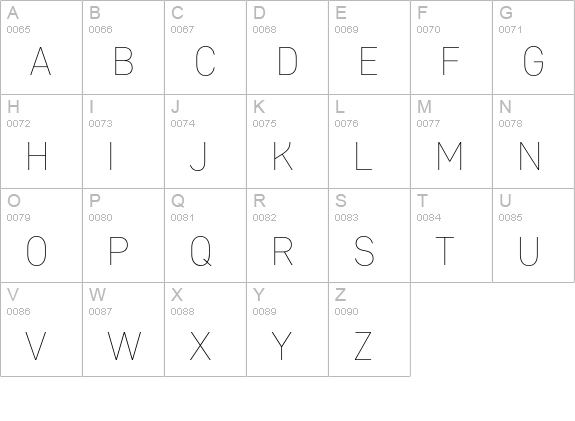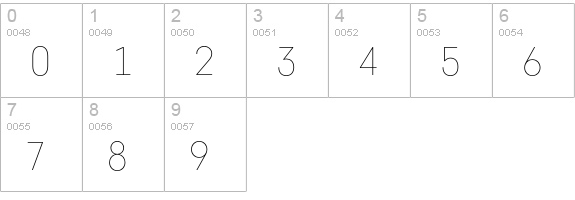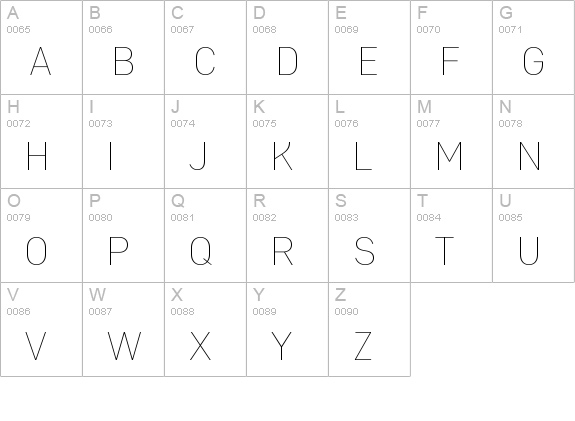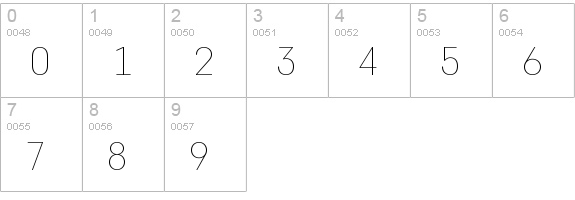
Core Sans D 15 Thin is a delicate, low-contrast variant in the Core typeface family \xE2\x80\x94 well suited to fashion editorial, minimal branding, and high-contrast display.
Core Sans D 15 Thin font is a sleek and modern typeface that exudes elegance and sophistication. With its thin, clean lines and minimalist aesthetic, this font is perfect for creating a refined and polished look in your design projects. The slender letterforms convey a sense of lightness and delicacy, making Core Sans D 15 Thin ideal for use in a variety of applications, from branding and advertising to editorial design and web graphics. This font is available for free download at FontsMarket.com, making it easily accessible to designers and creatives looking to add a touch of sophistication to their work. Whether you're looking to create a sleek logo, elegant typography for a publication, or a stylish website design, Core Sans D 15 Thin is a versatile and stylish choice that will elevate your projects to the next level. Download it today and see the difference it can make in your designs.